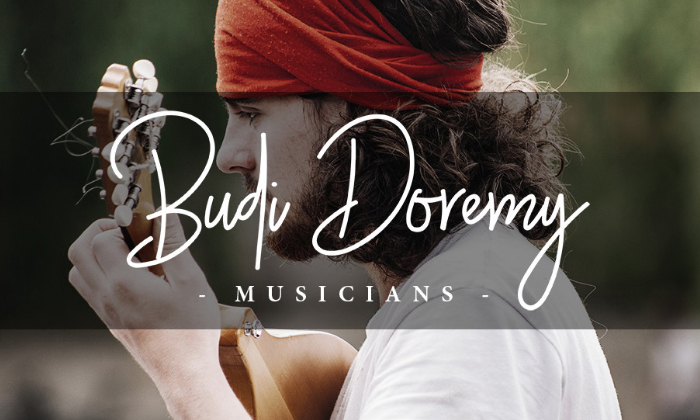
Free Grahamo Luxury Handwritten Signature Script Font
We feel glad to share with all creative designers very stylish Free Grahamo Luxury Handwritten Signature Script Font. By using this font, you can make your designs eye-catchy and more professional. You can use it in magazine designs, wedding invitations, greeting cards, fashion brands, promotions, social media templates, brochures and many more.